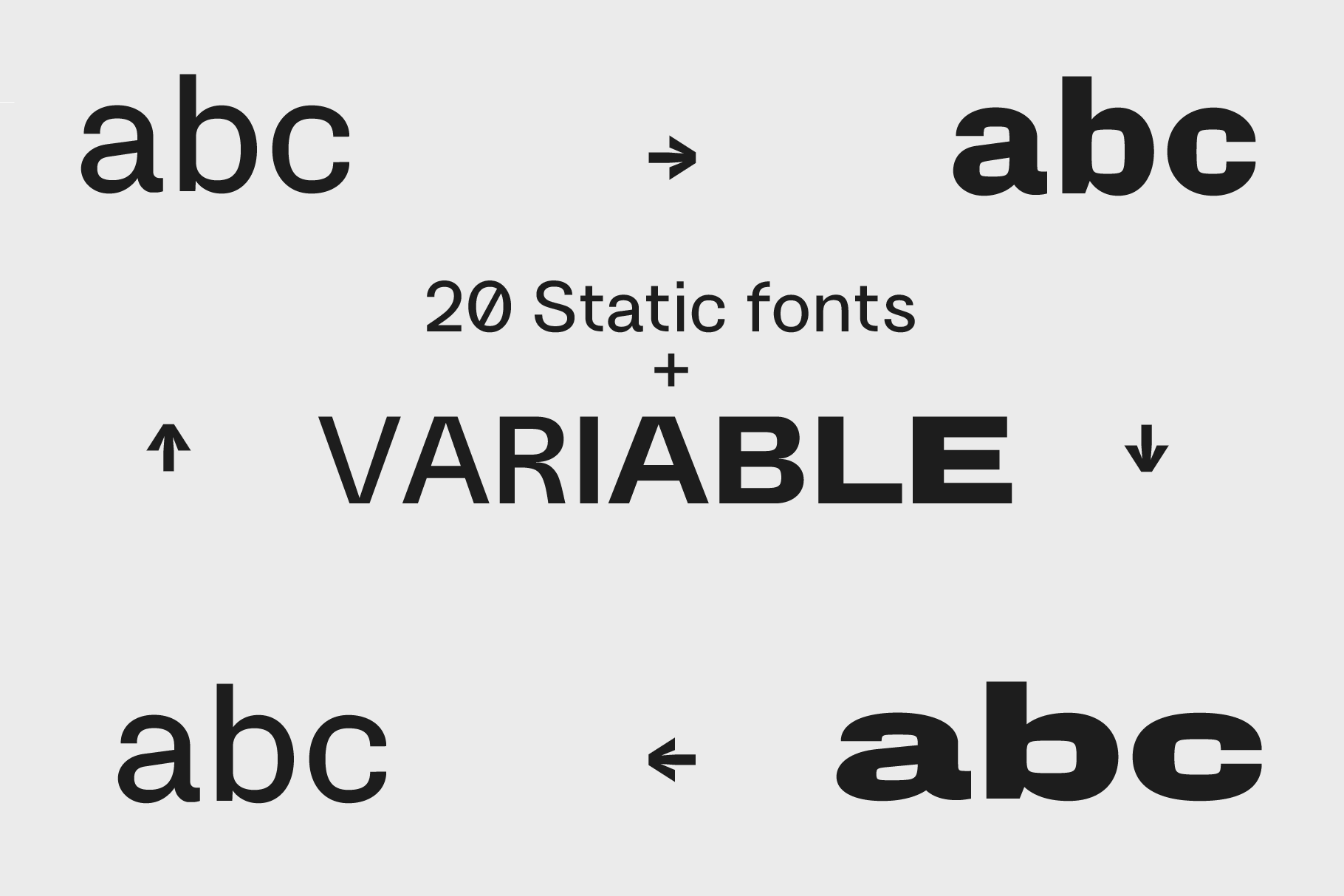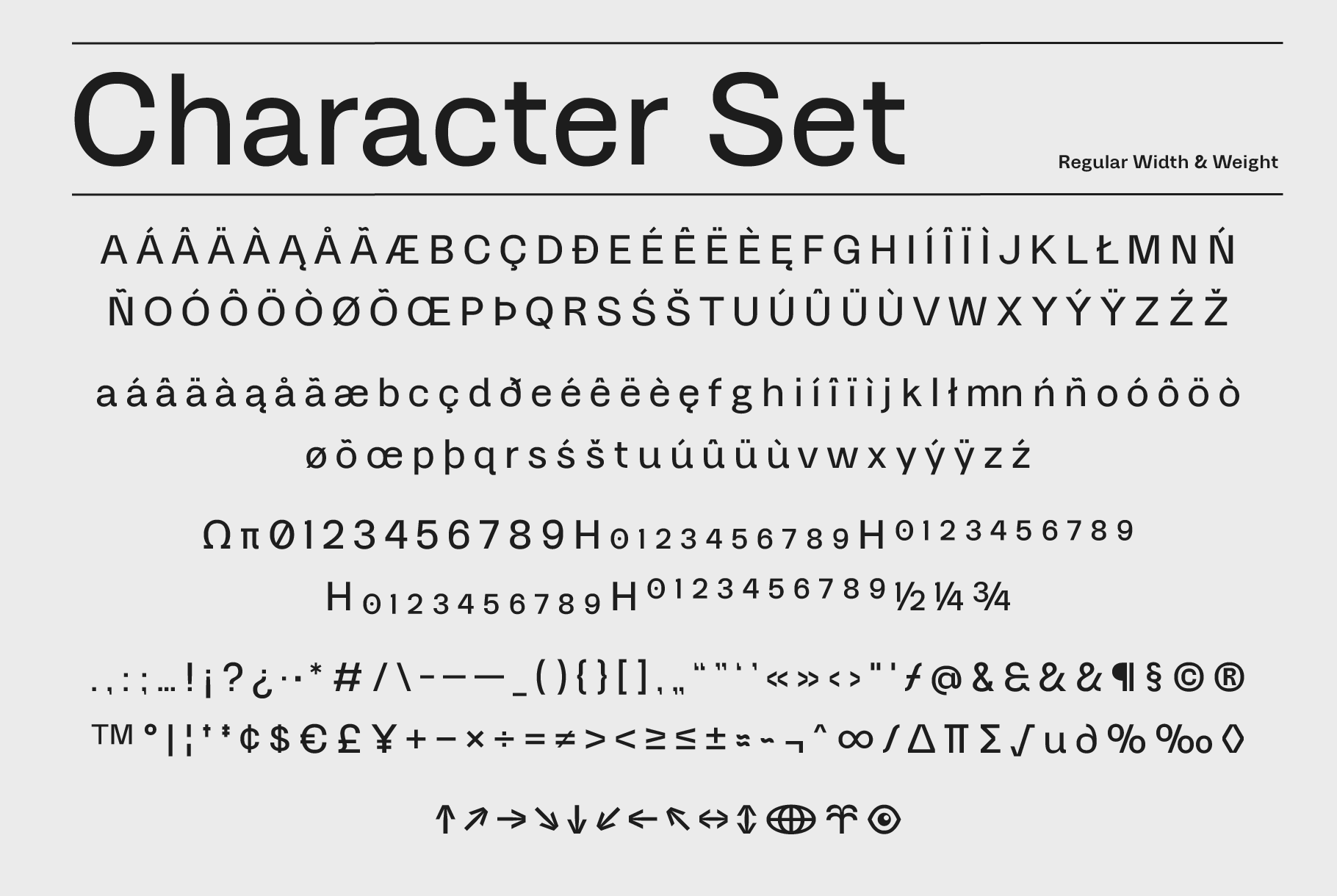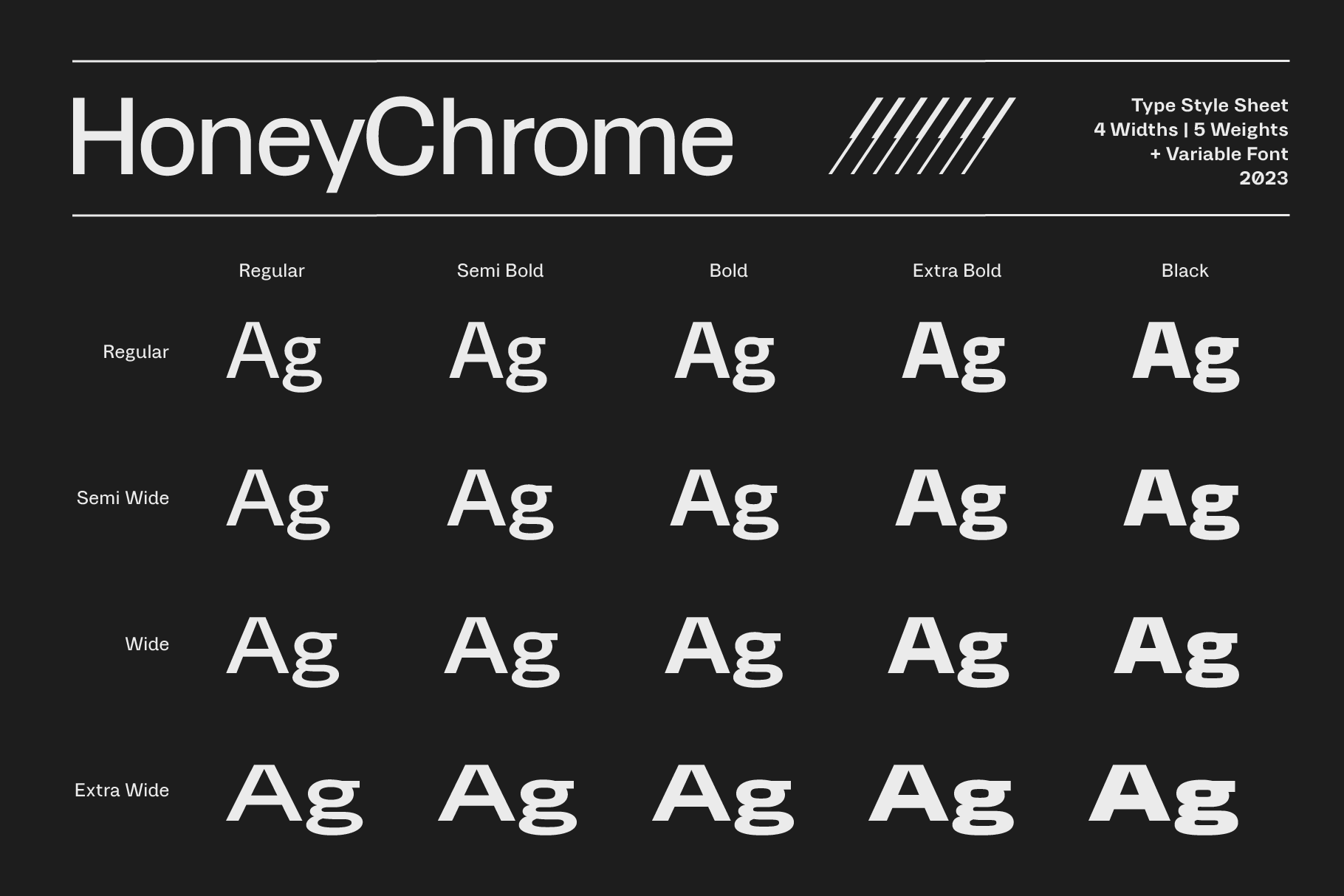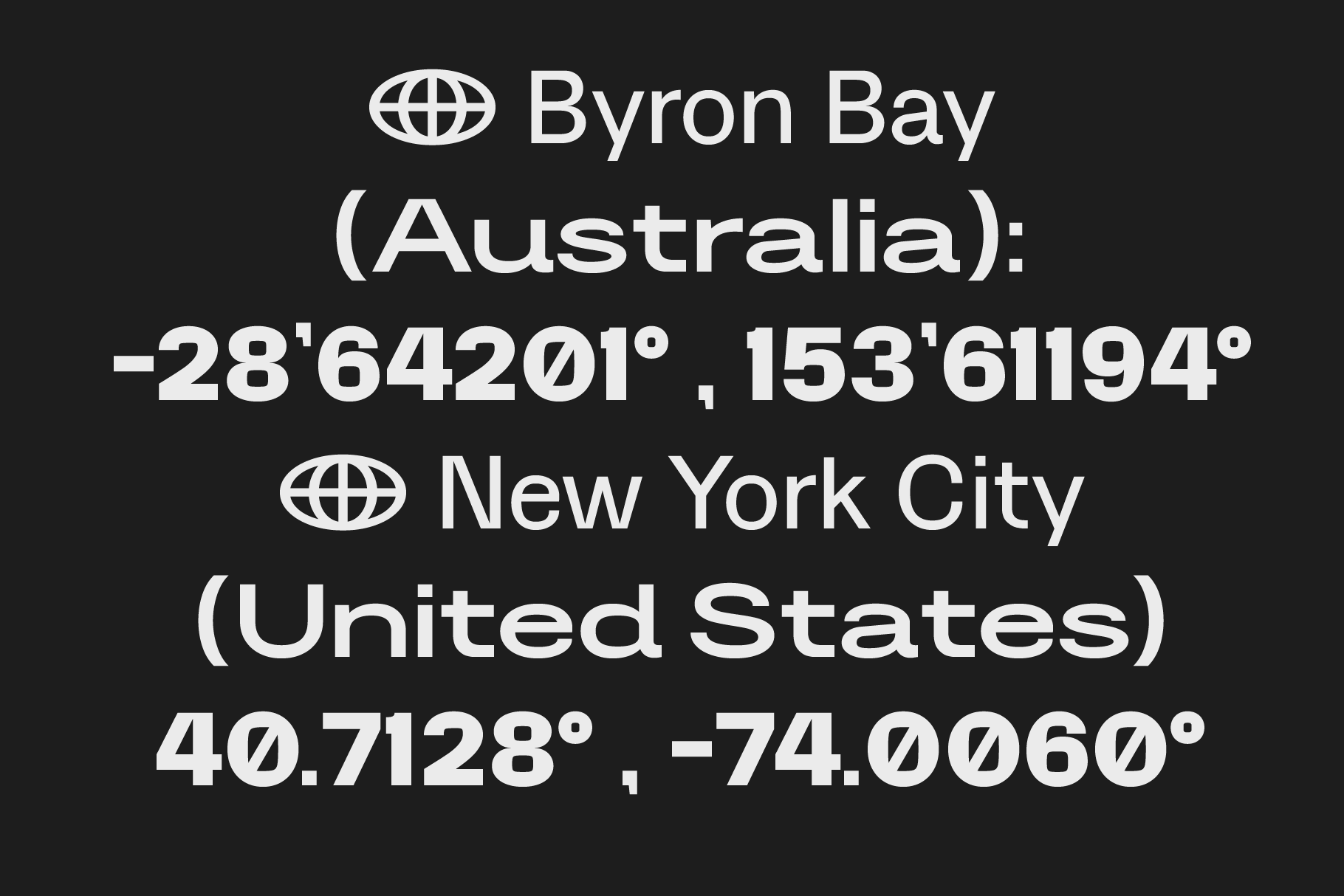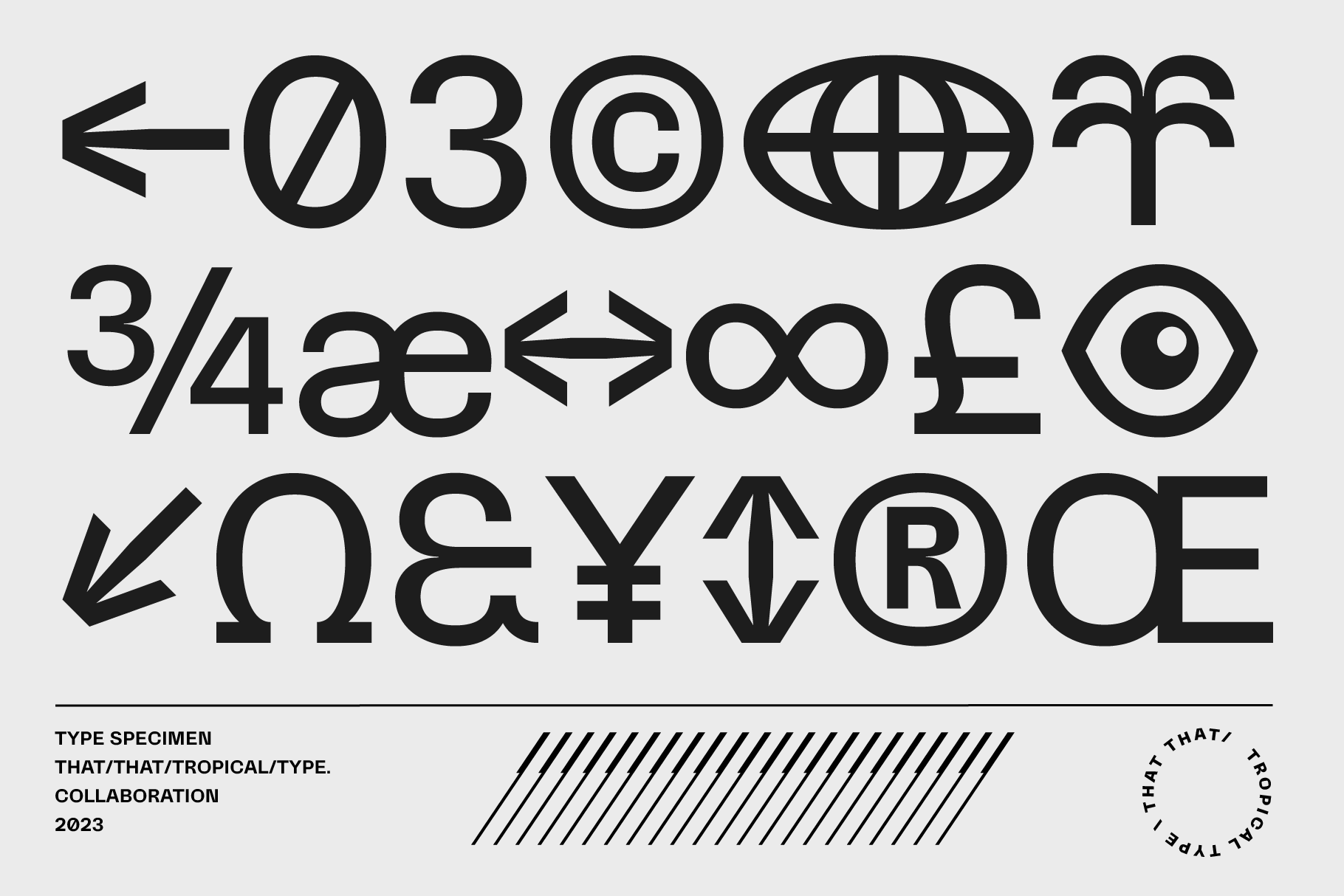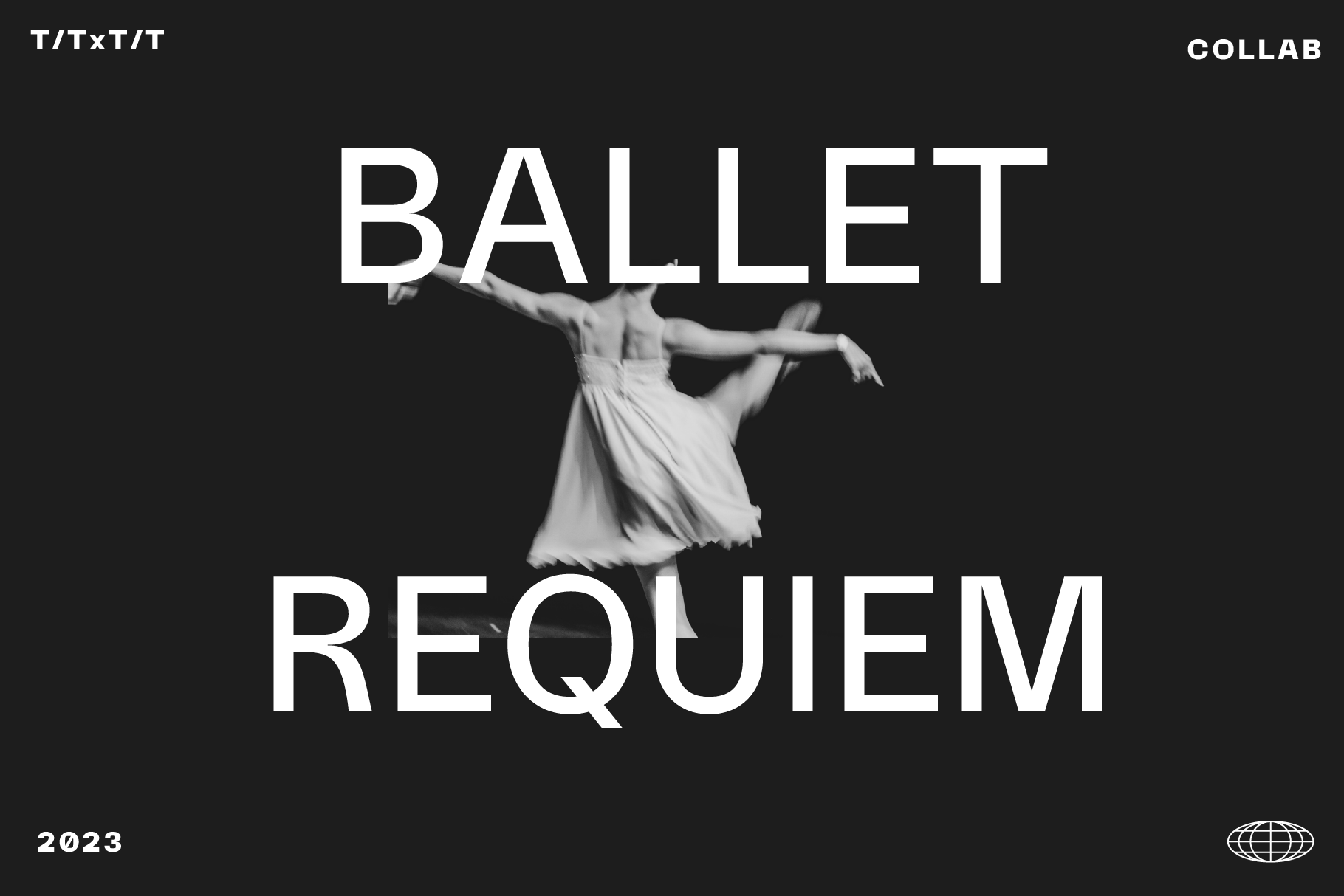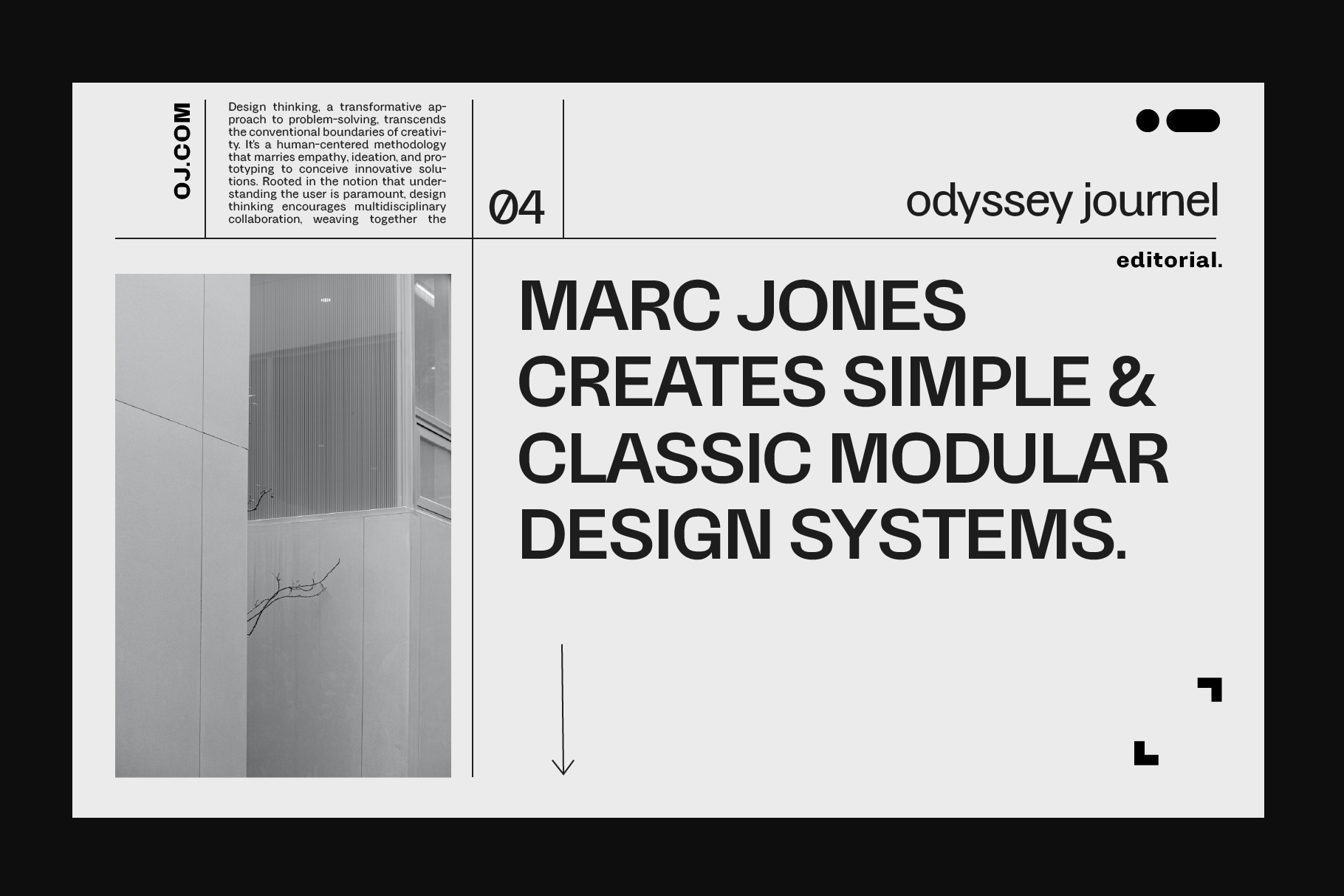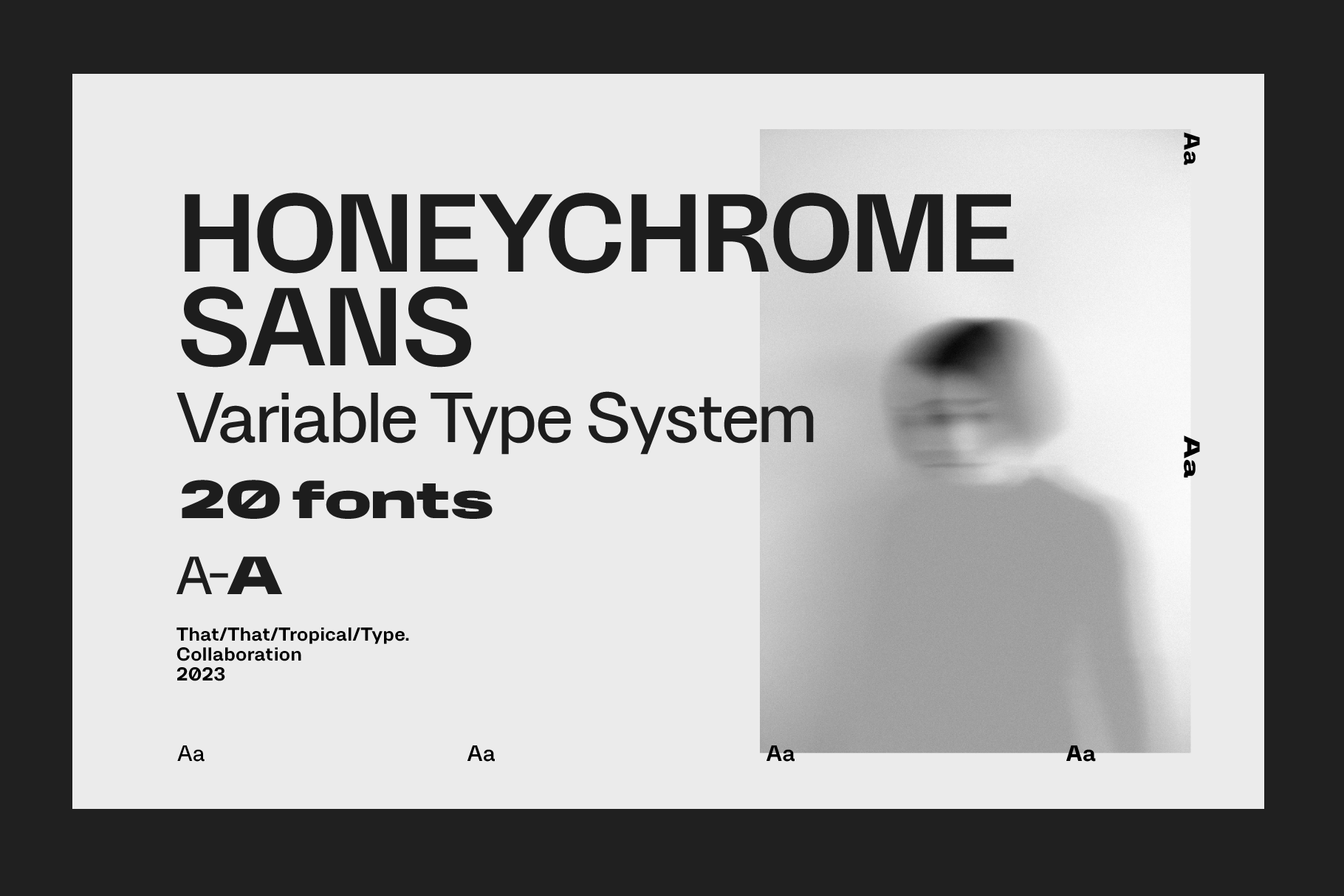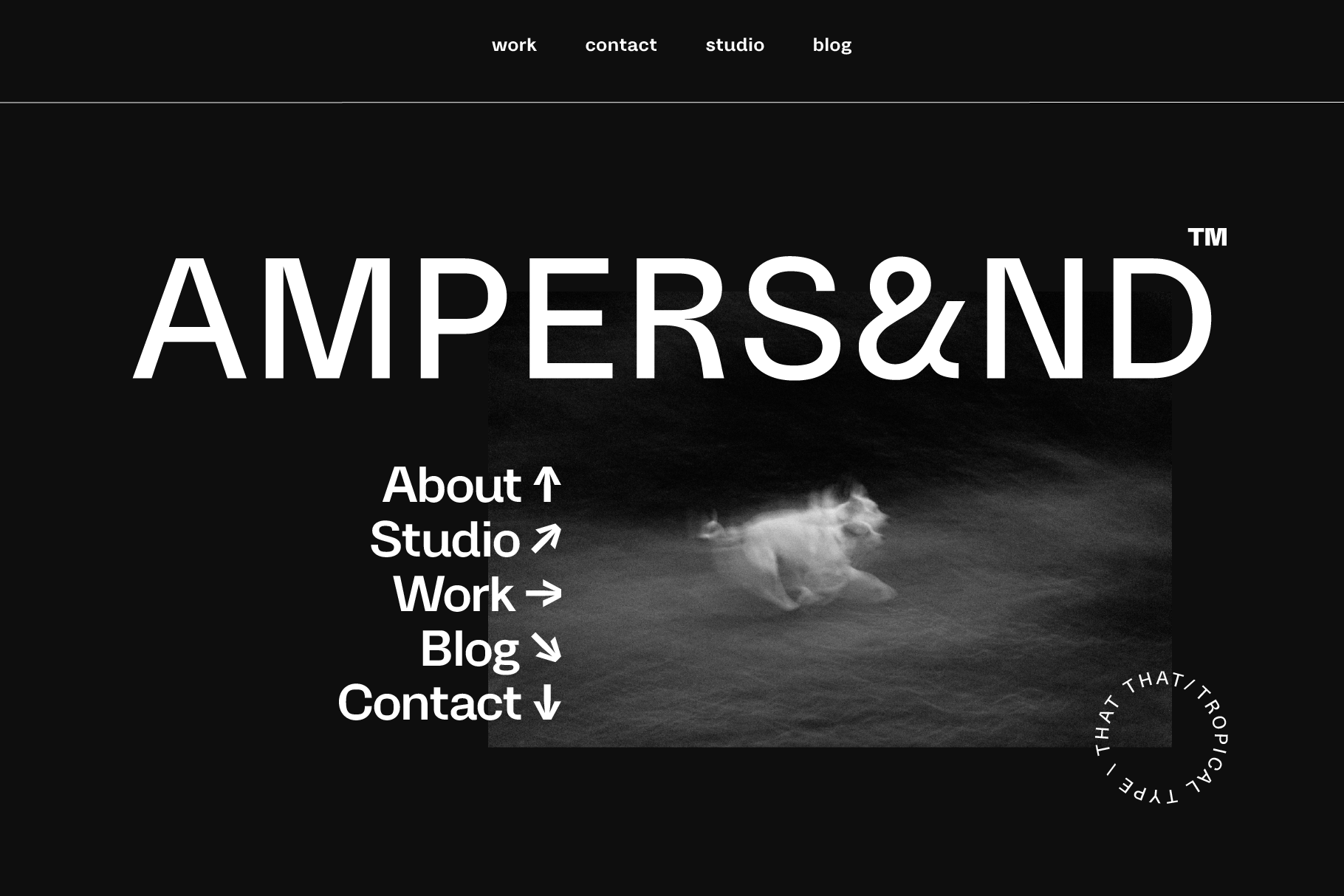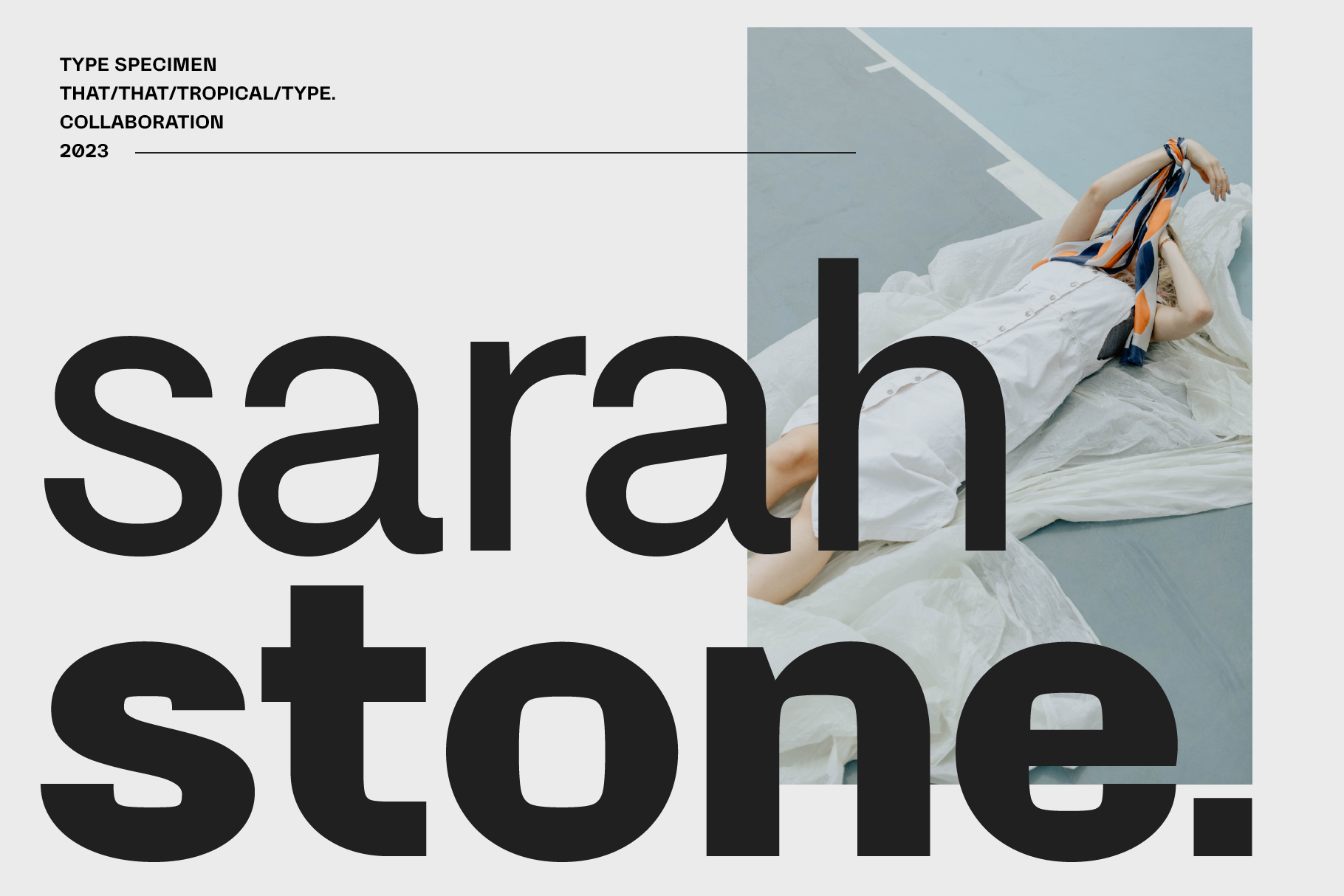
Honeychrome Variable Collection
Honeychrome Family
Regular SemiBold Bold ExtraBold Black SemiWide SemiBold SemiWide ExtraBold SemiWide Black Wide Wide SemiBold Wide ExtraBold Wide Black ExtraWide SemiBold ExtraWide ExtraBold ExtraWide BlackHoney Chorme is a practical work horse font at the regular to bold weights but then things get a bit wild at the ends of the spectrum with more personality in the black weight and wide widths. This font has a bit of an elevated tech bent with a human feel.